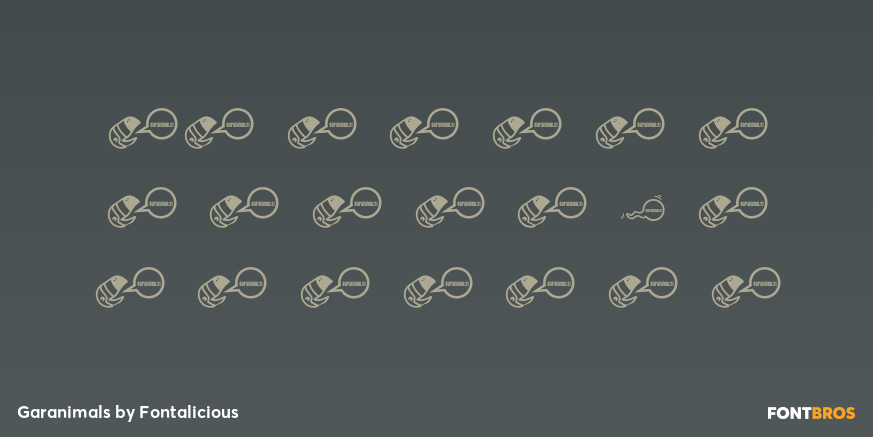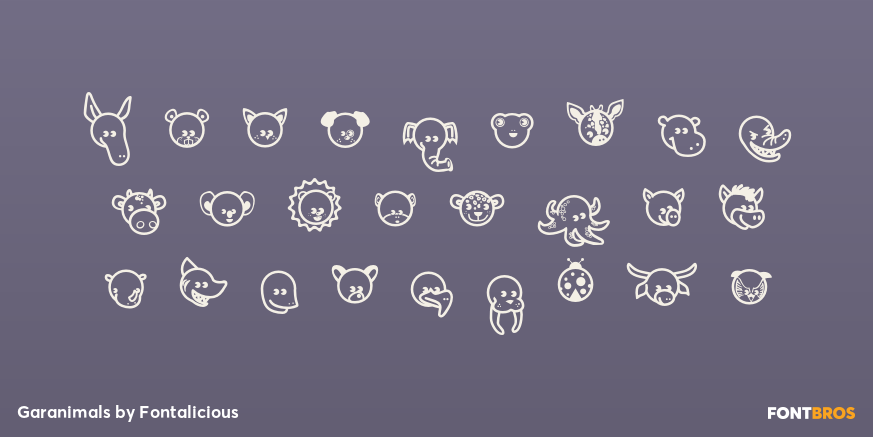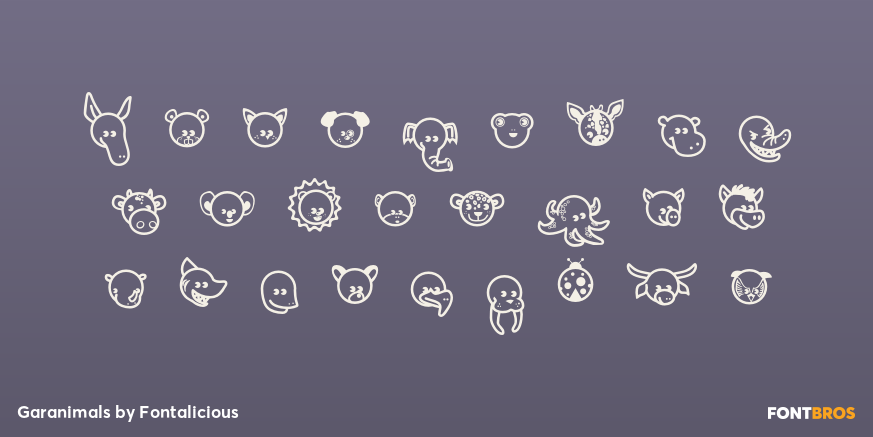
Garanimals
Font Family by Fontalicious
People like my font '?The Kids' because it's so dang cute. It's no secret. So I say to myself, "Sure kids are cute. They are probably the cutest human beings because they are tiny and talk like Alvin and the Chipmunks. But what's cuter than that?" I had no problem figuring out the answer. Everyone knows a cute li'l octopus is way more darling than any little snot-nosed brat.